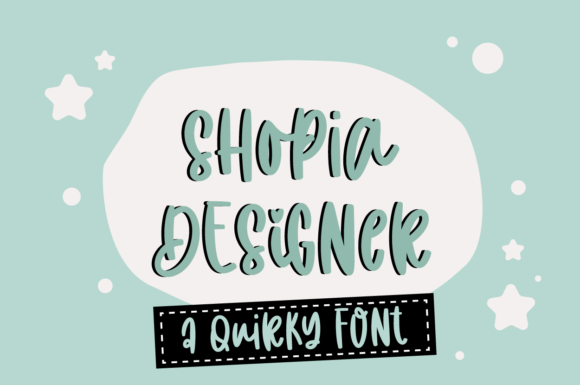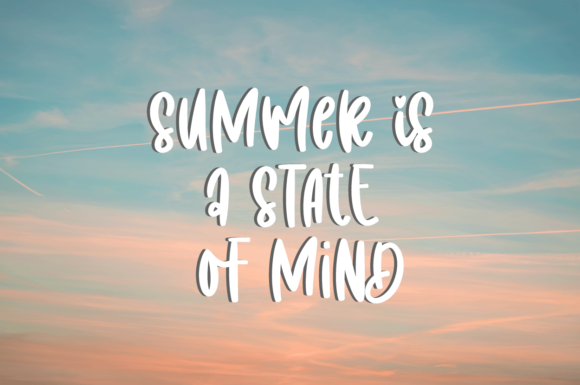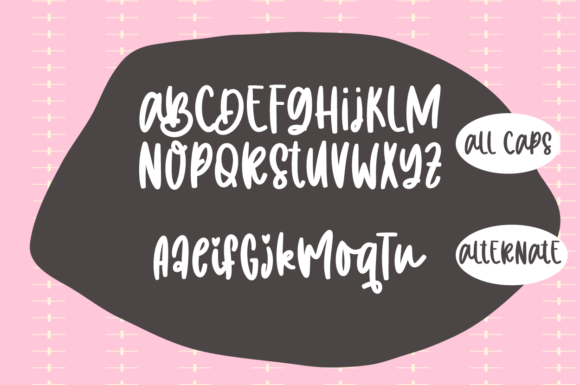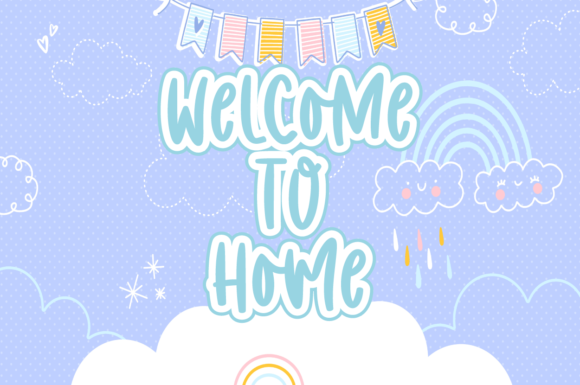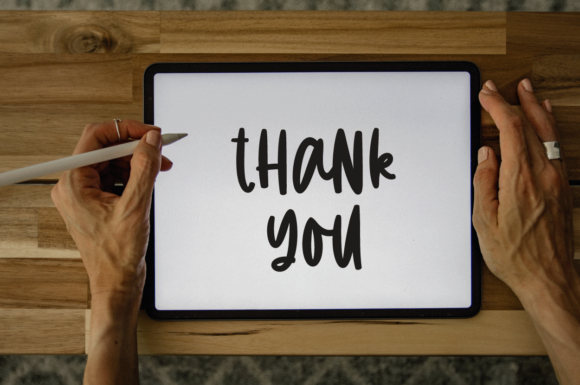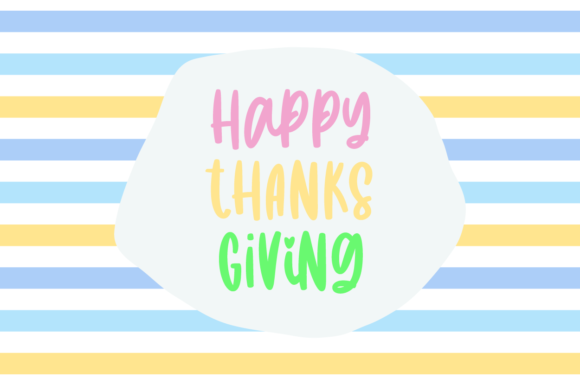
Shopia Designer Font
About Shopia Designer Font
Shopia Designer is a quirky and natural handwritten font. Fall for its ravishing style and use it to create gorgeous wedding invitations, beautiful stationary art, eye-catching social media posts, and much more!